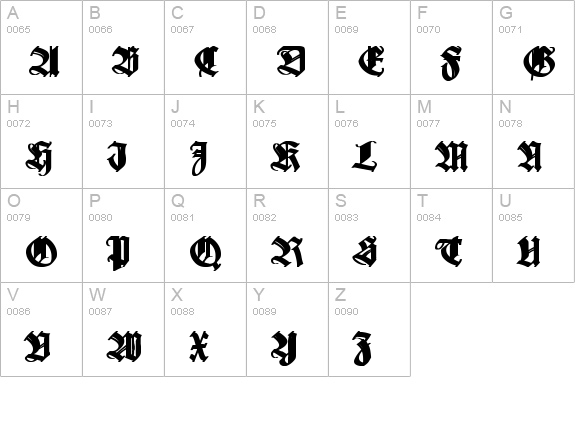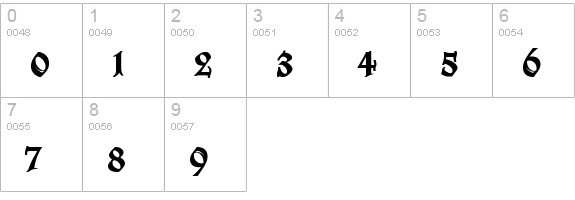
WilhelmKlingsporGotisch Bold Font Details
WilhelmKlingsporGotisch Bold is a strong, high-contrast variant in the WilhelmKlingsporGotisch typeface family \xE2\x80\x94 well suited to headlines, attention-grabbing titles, and strong calls-to-action.
WilhelmKlingsporGotisch Bold font is a stunning display typeface that exudes elegance and sophistication. Its bold and intricate letterforms are inspired by the rich heritage of Gothic calligraphy, yet they possess a modern twist that makes this font truly unique. With its strong presence and commanding presence, WilhelmKlingsporGotisch Bold font is perfect for headlines, titles, and branding projects that require a touch of grandeur. Its captivating curves and sharp edges create a visual impact that is sure to captivate and engage the audience. One of the most remarkable aspects of WilhelmKlingsporGotisch Bold font is that it is freely available to download at FontsMarket.com. This means that designers and creatives can access this exceptional typeface without any constraints or limitations. The freedom to utilize this font in various projects allows for endless possibilities and creativity to flourish. Whether used in print or digital media, WilhelmKlingsporGotisch Bold font effortlessly adds a touch of class and sophistication to any design. Its versatility and timeless appeal make it a go-to choice for designers who seek to make a bold statement while preserving a sense of tradition. Download WilhelmKlingsporGotisch Bold font for free at FontsMarket.com and unlock the potential to create visually stunning and impactful designs. Embrace the beauty and power of this remarkable typeface and elevate your projects to new heights.